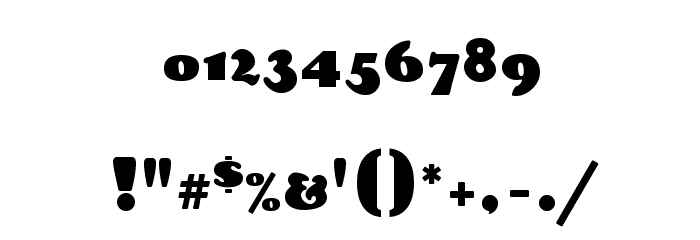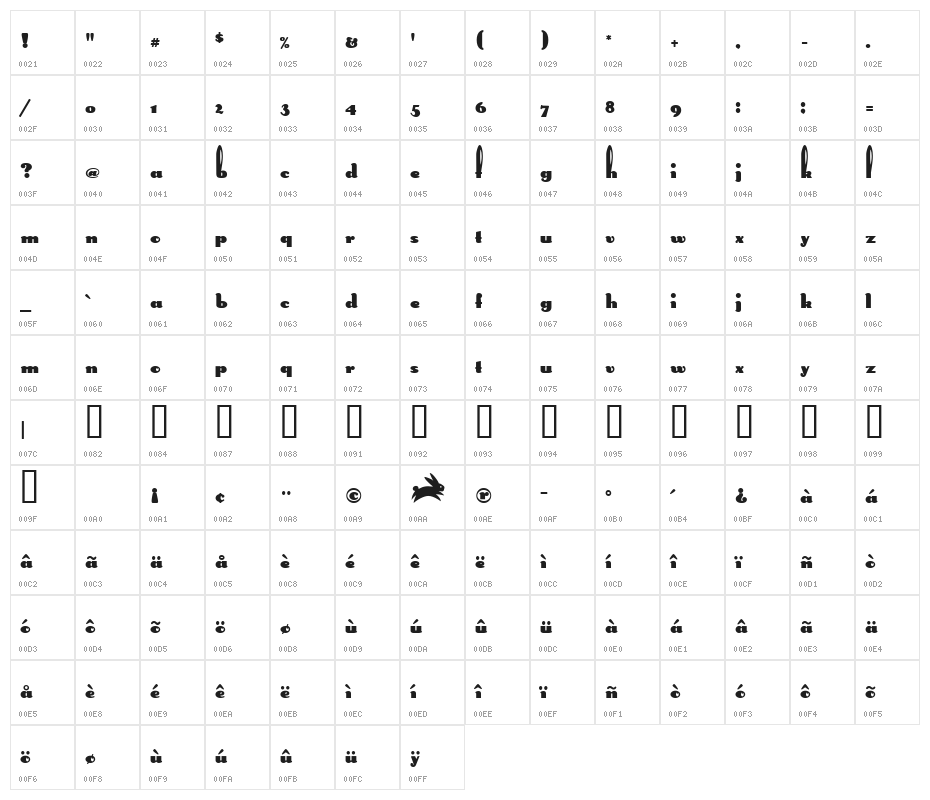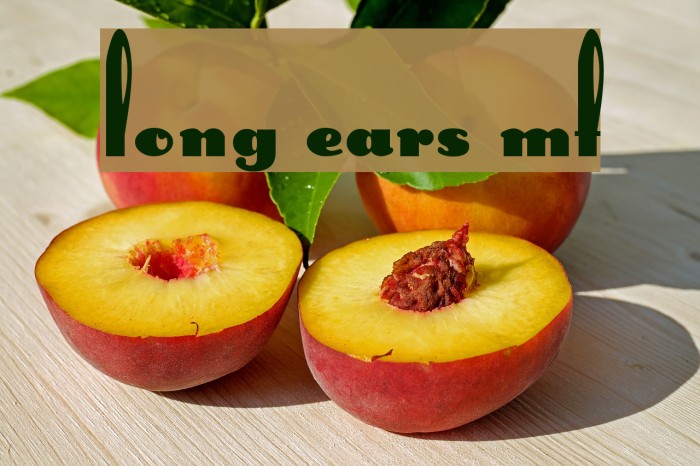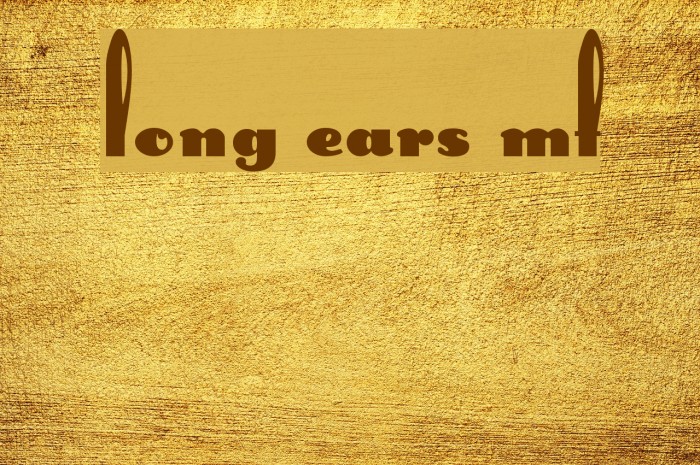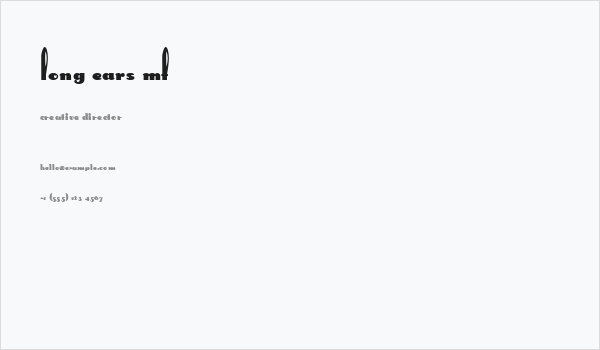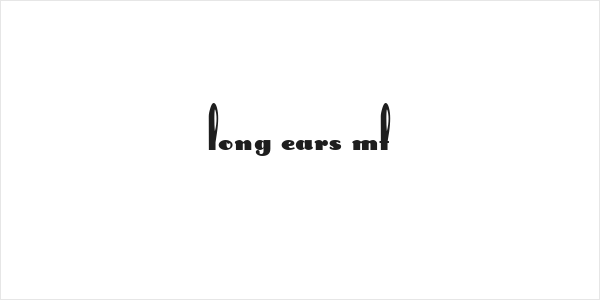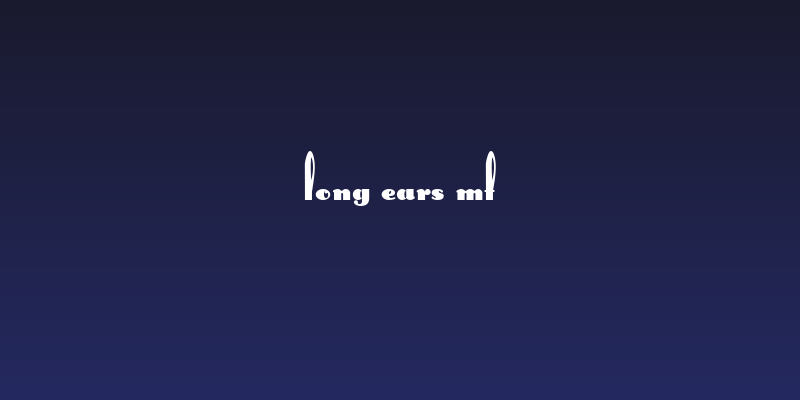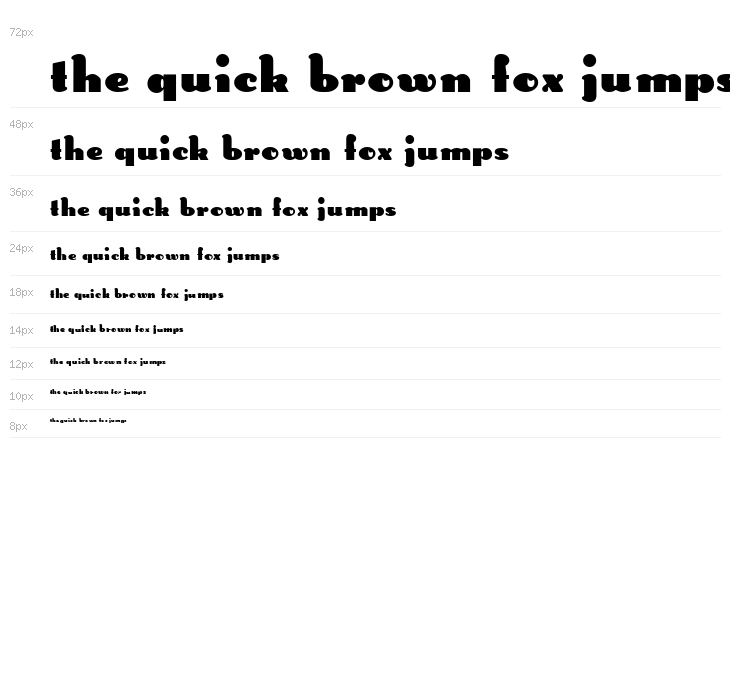
Long Ears MF Font
Long Ears MF Description
This font features a playful and whimsical design, characterized by its unique elongated ascenders and descenders that resemble rabbit ears. The letters are bold and rounded, giving a friendly and approachable feel. The font maintains a consistent thickness throughout, with minimal contrast between strokes. Its distinctive style makes it stand out, making it suitable for creative and fun projects. The special characters and numbers are designed to match the playful theme, ensuring a cohesive look across all text elements.